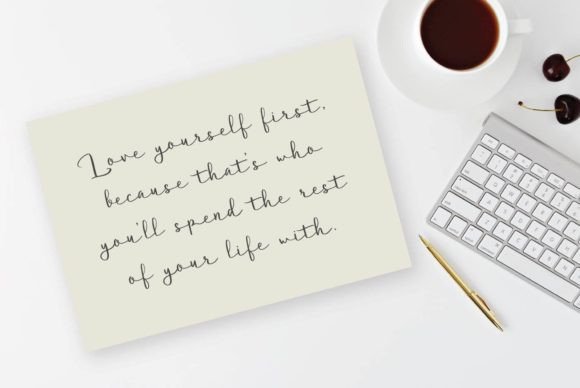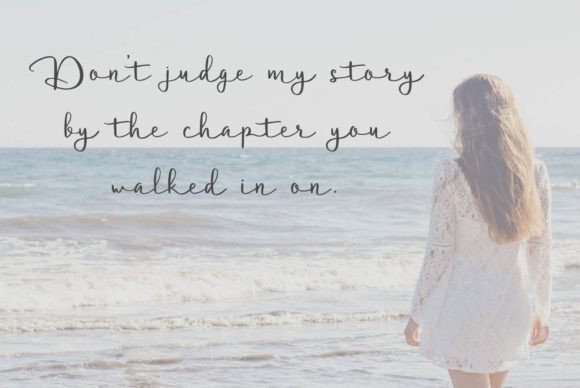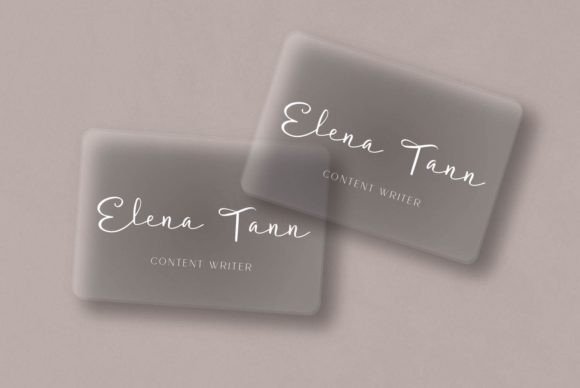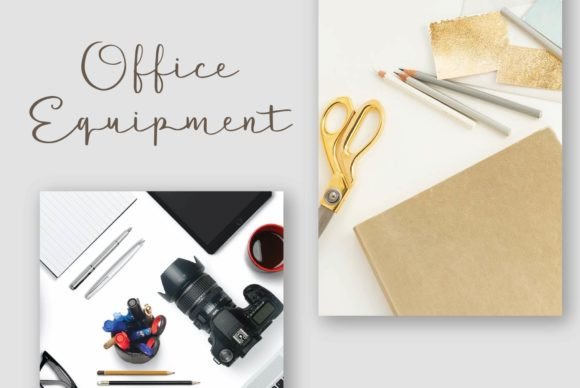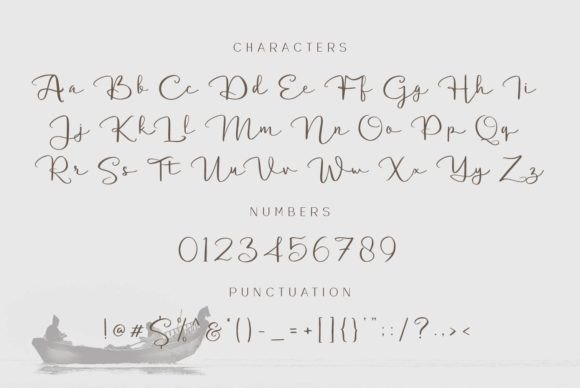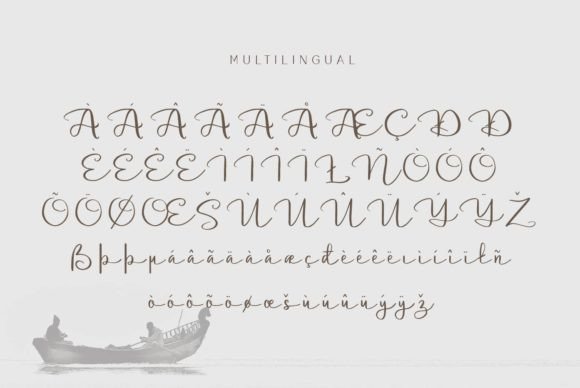
About Delanggi Font
“Delanggi” is a delicate and well-rounded handwritten font that brings an authentic touch to crafty projects. Ideal for a range of creative endeavors, this font is particularly well-suited for applications like wedding invitations, birthday cards, personal branding, elegant logos, and more. By incorporating “Delanggi” into your designs, you ensure that they stand out with a unique and authentic typography.
The delicate strokes and well-rounded forms of “Delanggi” contribute to its charm, making it an excellent choice for projects that demand a touch of elegance and authenticity. Whether you’re crafting invitations for special occasions or developing a personal brand, this font adds a distinctive and genuine quality to your typography.
Crafty projects benefit from the authentic appeal of “Delanggi.” Its handwritten style adds a warm and personal touch, enhancing the overall character of your designs. The font’s versatility allows it to adapt seamlessly to various contexts, providing a genuine and well-rounded typographic element.
Wedding invitations, with their need for a romantic and personalized touch, find a perfect match in “Delanggi.” The font’s delicacy and authenticity contribute to the creation of invitations that capture the essence of special moments, adding a touch of elegance to the celebration.
For personal branding and elegant logos, “Delanggi” stands out as a font that communicates individuality and sophistication. Its well-rounded forms and handwritten authenticity create a visual identity that is both memorable and refined, setting your brand apart with a distinct typographic style.
In conclusion, “Delanggi” is a font that excels in bringing a delicate and well-rounded handwritten style to your crafty projects. Its authenticity makes it suitable for a variety of applications, from invitations to personal branding, allowing your designs to stand out with a unique and genuine typographic presence. Incorporate “Delanggi” to infuse your creations with a touch of elegance and authenticity that resonates with the charm of handwritten craftsmanship.